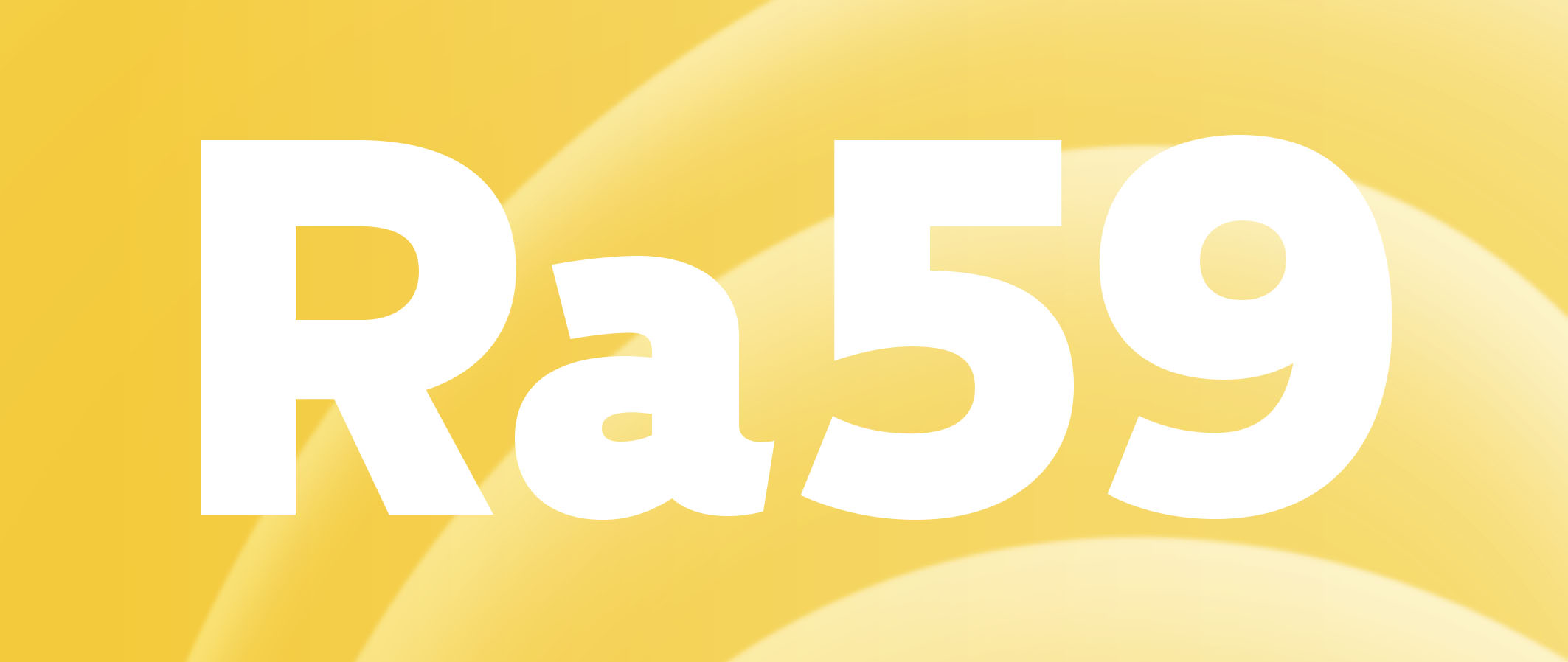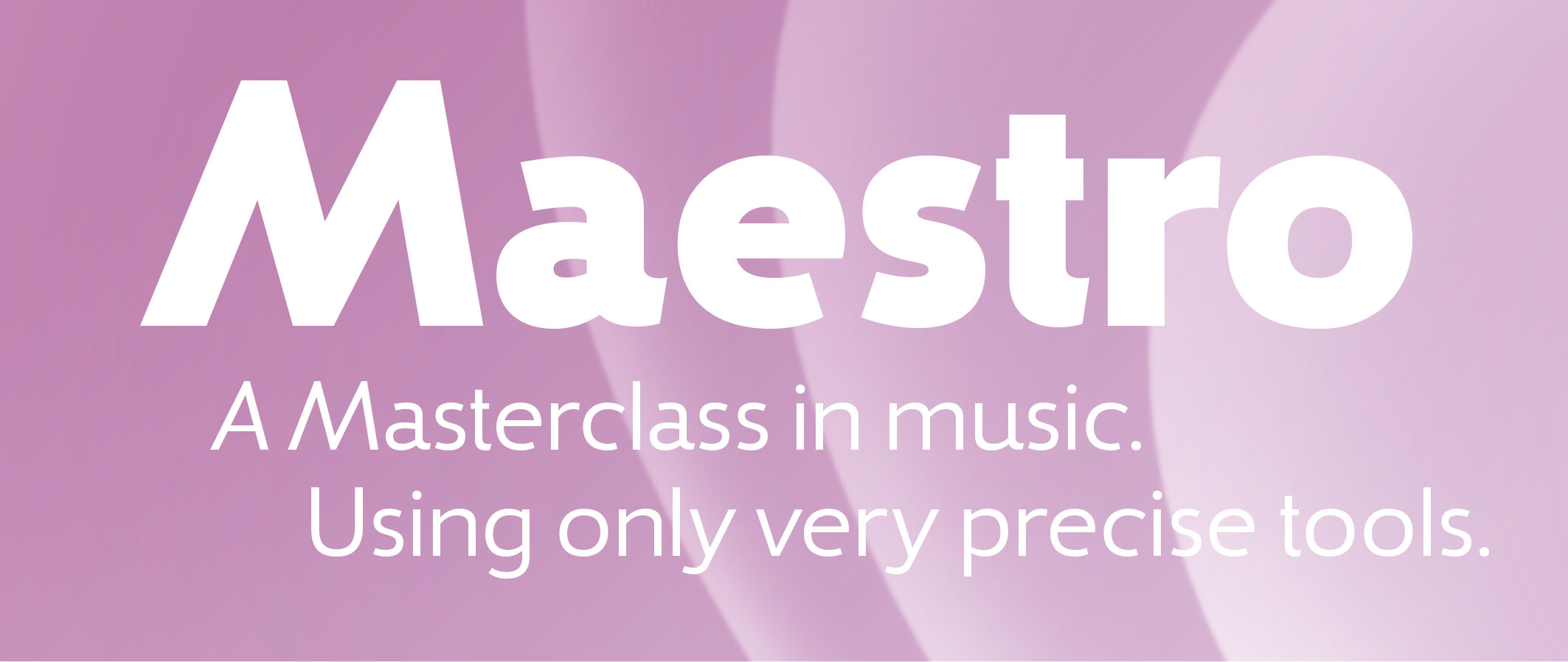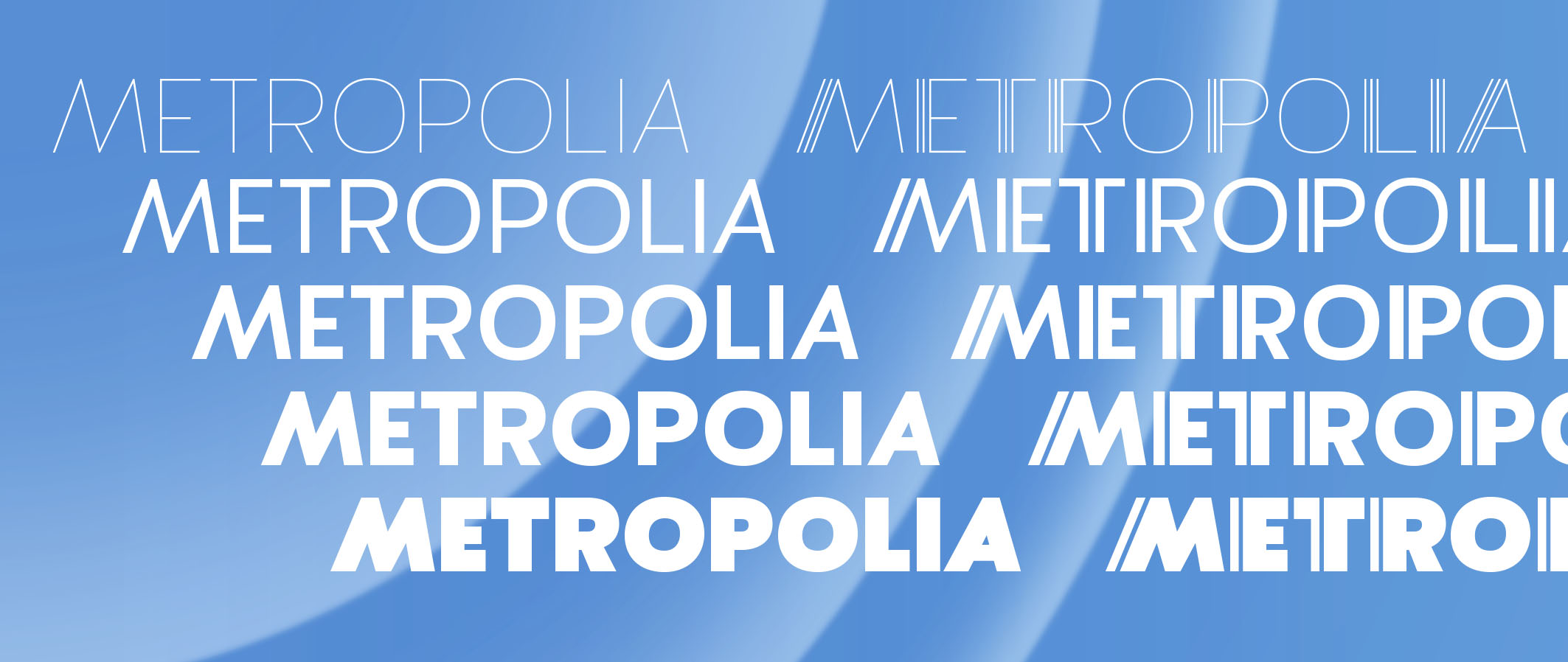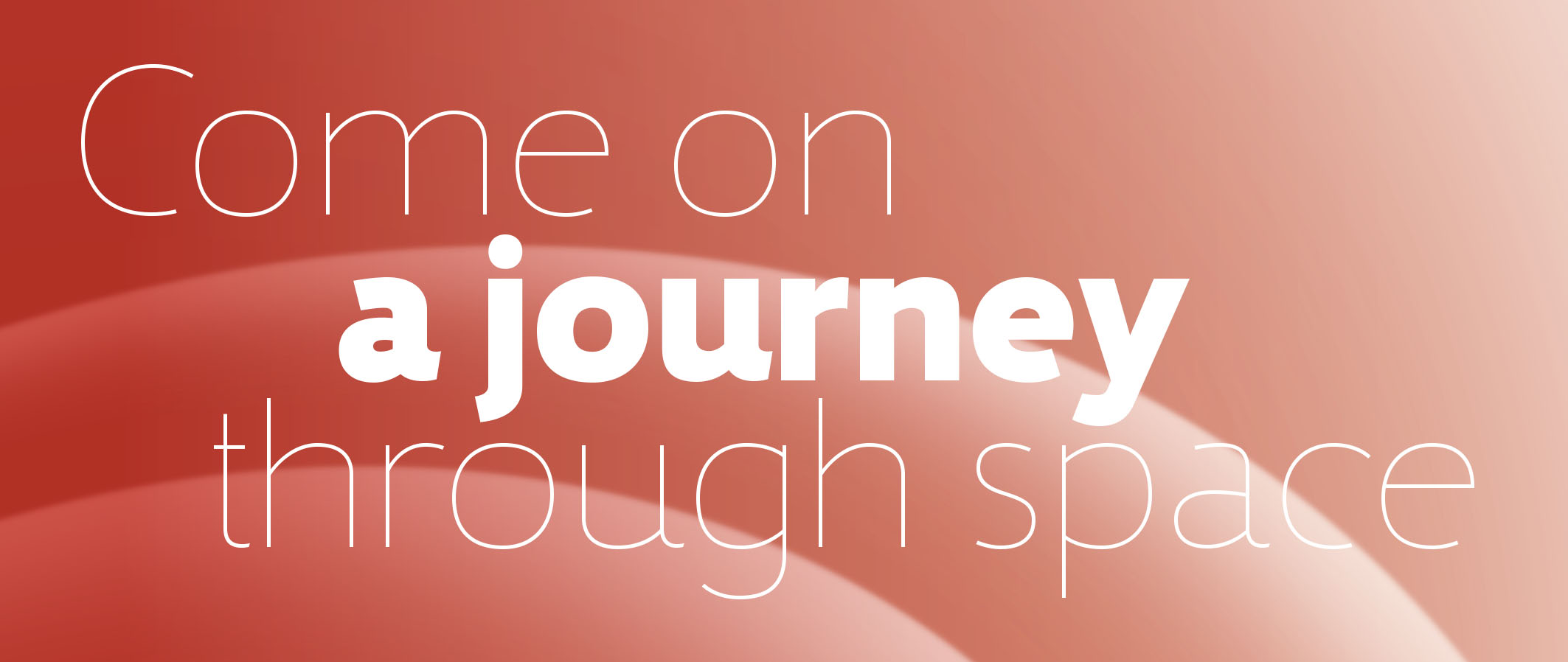
Metropolia II
Metropolia is designed with an asymmetry, giving it a strong art deco influence.
A slight tilt brings it a forward movement and a distinct flavour. Designed primarily for headline use, this is not a workhorse font but a playful and versatile addition to the font toolbox. A set of alternate capitals will be handy for headline or logo ornaments.